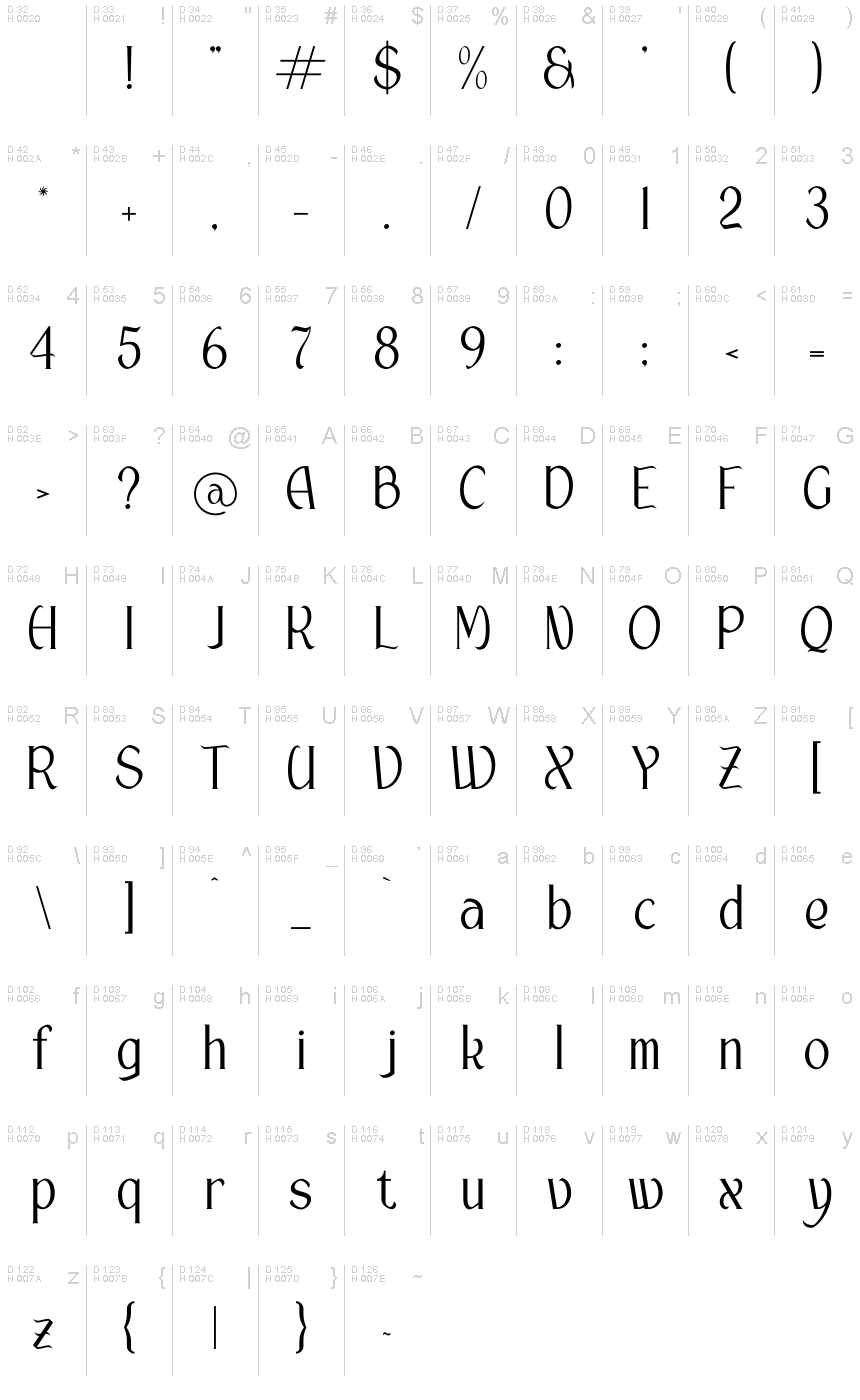
Riolanik
Riolanik, a captivating display font crafted by Storytype Studio, exudes a delightful retro charm. Its distinct letterforms evoke a sense of nostalgia, with subtly elongated ascenders and descenders that lend an elegant, yet playful character to the design. The font's balanced proportions and harmonious strokes create a visually striking presence, making it an intriguing choice for a variety of design projects.
Riolanik's retro-inspired aesthetics make it a versatile option for projects aiming to capture a vintage or whimsical essence. Its unique personality lends itself well to branding, packaging, and editorial design, where it can effectively convey a sense of timelessness and creative flair. Riolanik's versatility also extends to the realms of event invitations, poster designs, and even digital interfaces, where its captivating presence can elevate the overall visual impact.